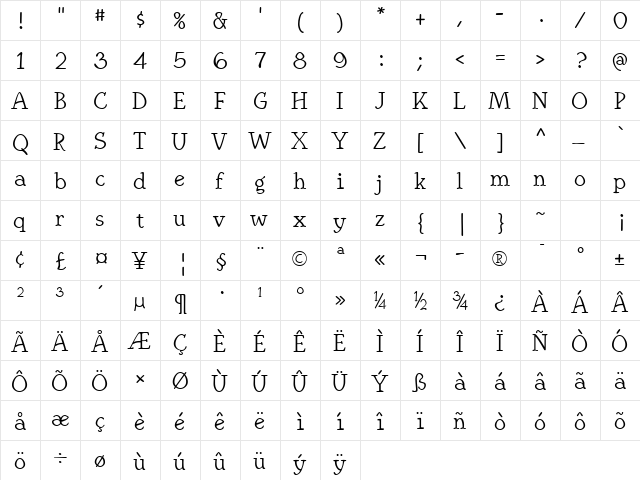
KampIngrianaH Regular
Design Context for KampIngrianaH Typeface
KampIngrianaH is a composed and adaptable typeface that performs quietly and consistently across a wide range of design contexts.